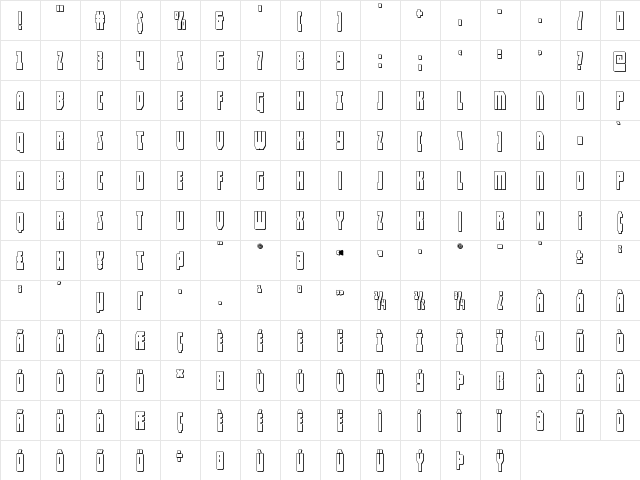
Elastic Lad 3D Regular
Design Context for Elastic Lad 3D Typeface
Elastic Lad 3D is a composed and adaptable typeface that performs quietly and consistently across a wide range of design contexts.